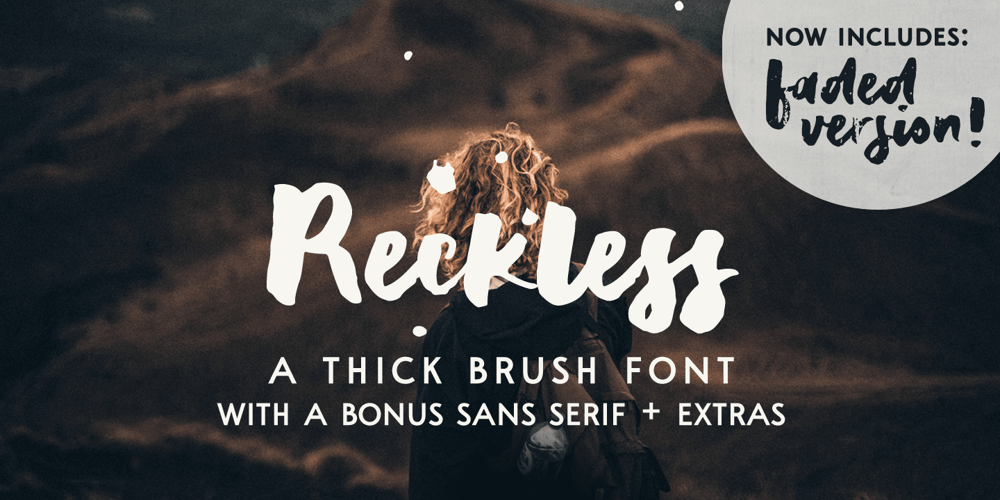
Reckless Font Family was designed by Ana Parracho and published by Ana’s Fonts. Reckless contains 5 styles and family package options. Reckless is a thick brush font with rough edges. It’s perfect to make a statement and will look great in quotes, logos, titles, postcards, tags.This handlettered font includes:- A-Z, a-z, 0-9, accents, punctuation and symbols – Ligatures and Contextual and Stylistic Alternates – An extra set of 26 splatters and swashes – A bonus faded version & an all caps sans serif fontThe sans serif font is the small caps version of my font A Pompadour in both regular and bold.